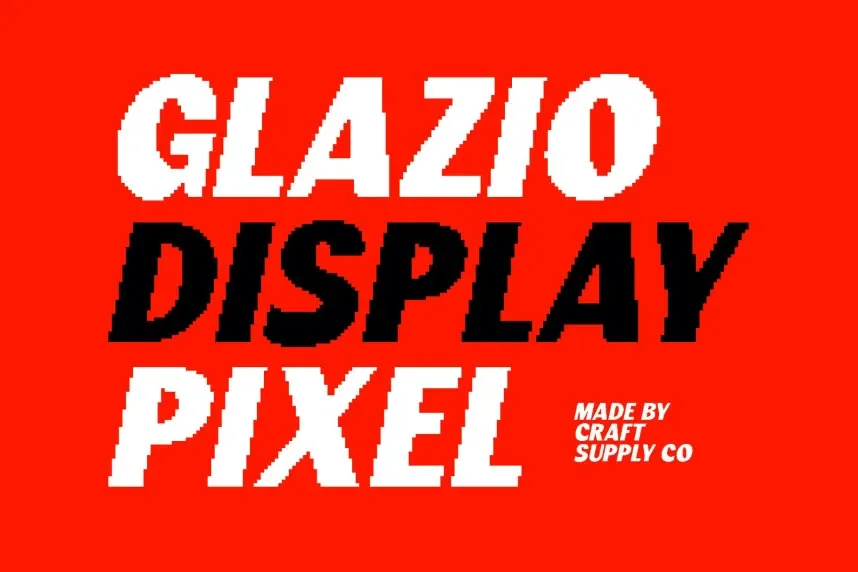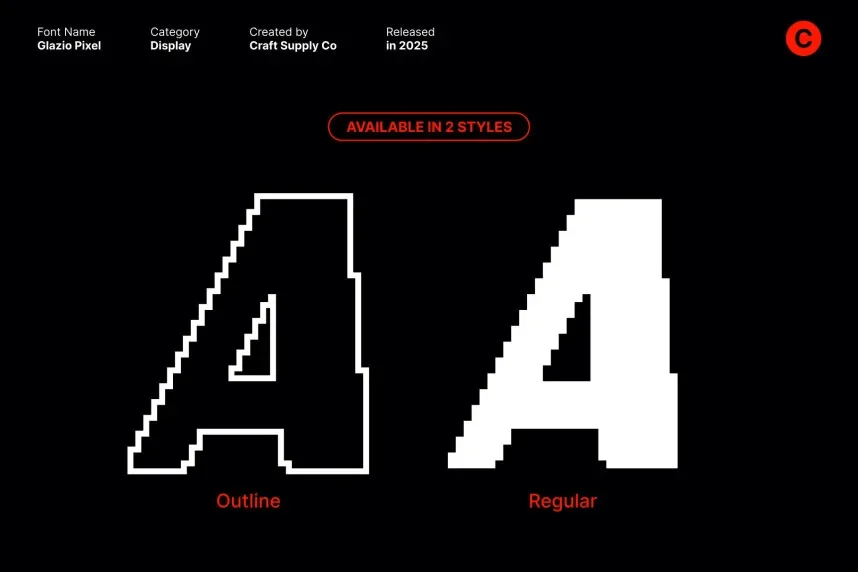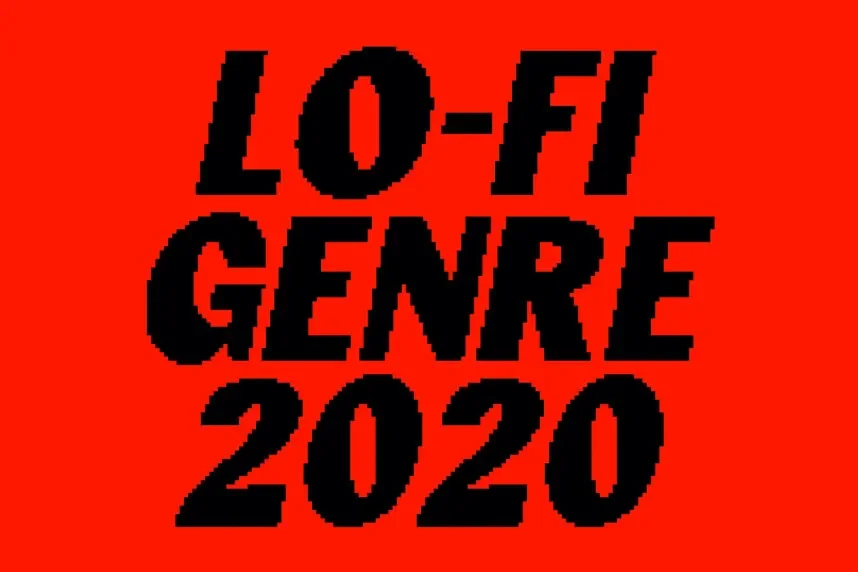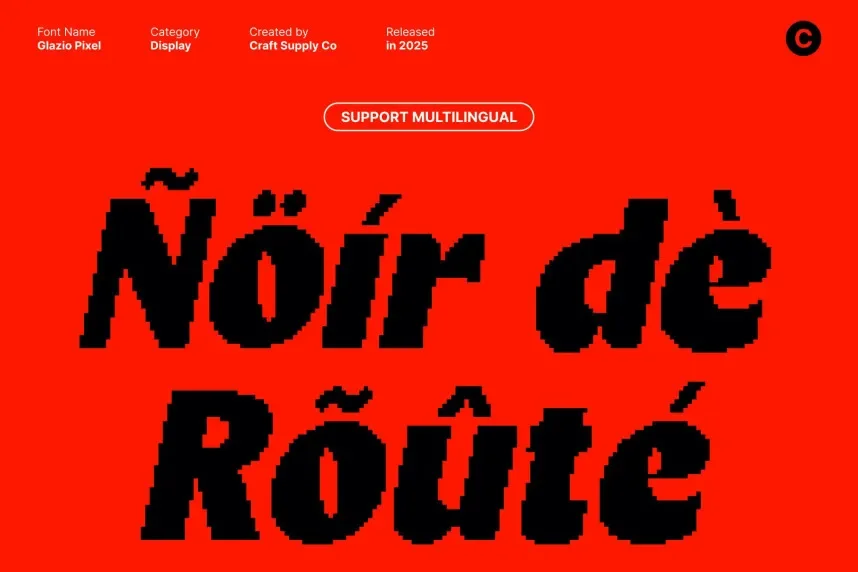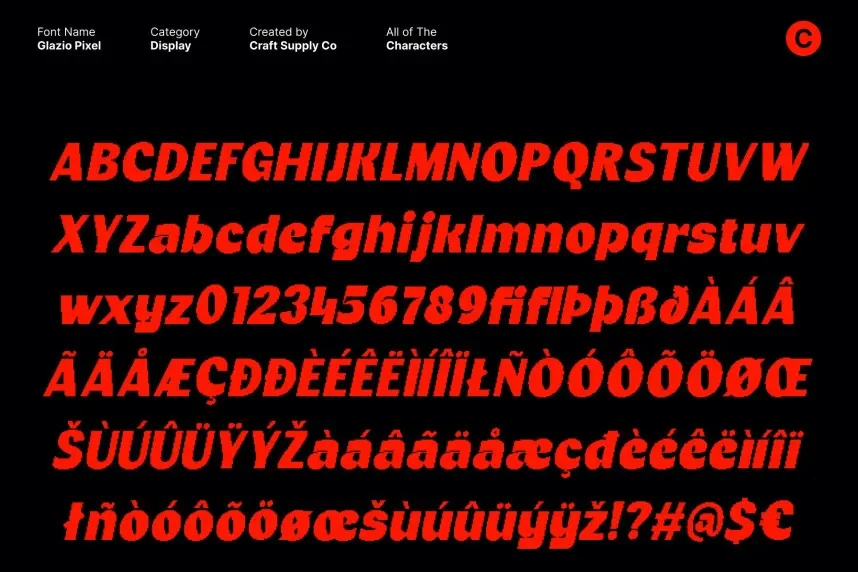
Glazio Pixel Font is a retro-style display typeface inspired by pixel art. Its blocky structure and pixelated edges give it a digital, arcade-inspired look, making it ideal for projects that require a tech or gaming aesthetic, such as logos, website headers, and game interfaces.